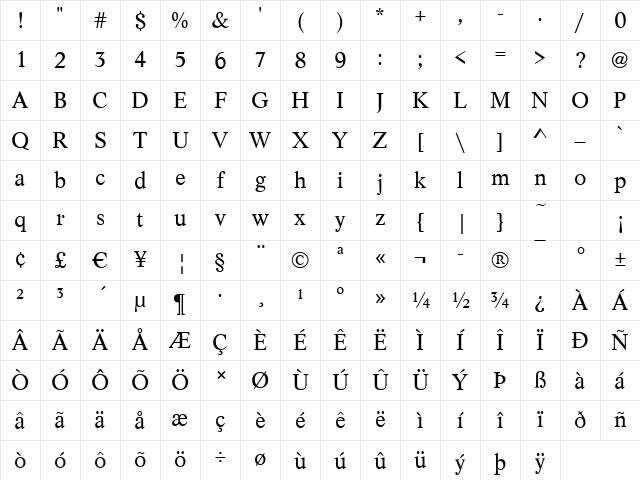
Lyon Regular
Lyon Family
Complete Lyon Regular glyph index. Displaying only characters natively supported by Lyon Regular font.
Design Context for Lyon
Lyon is a composed and adaptable typeface that performs quietly and consistently across a wide range of design contexts.